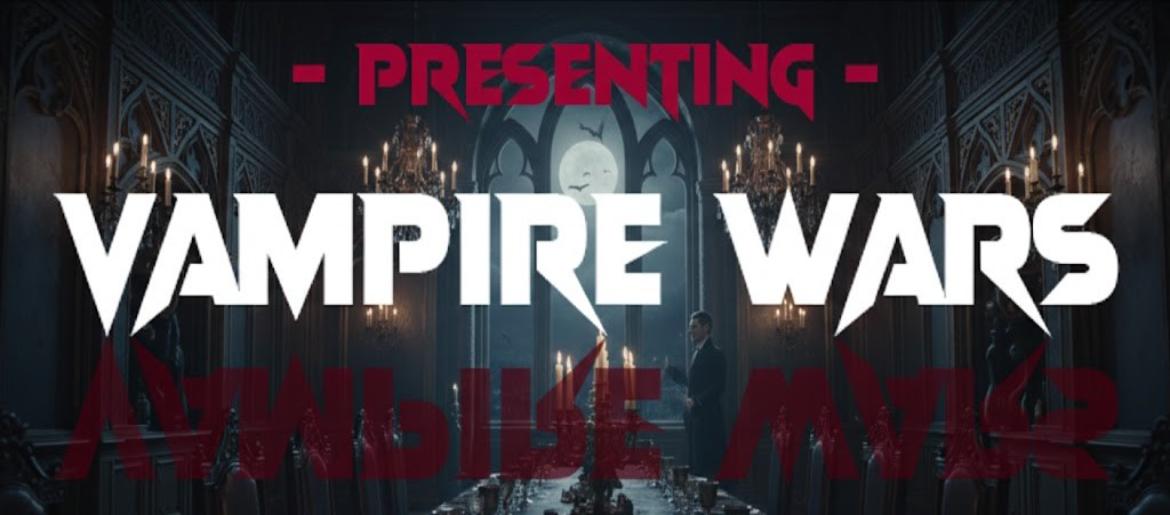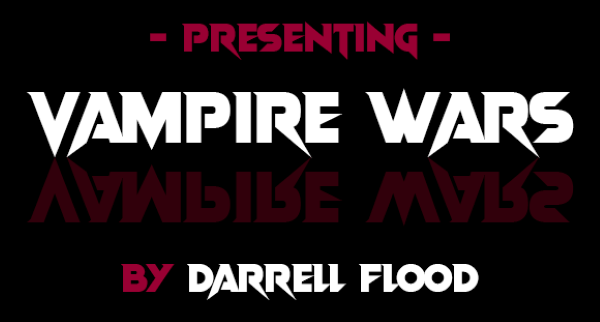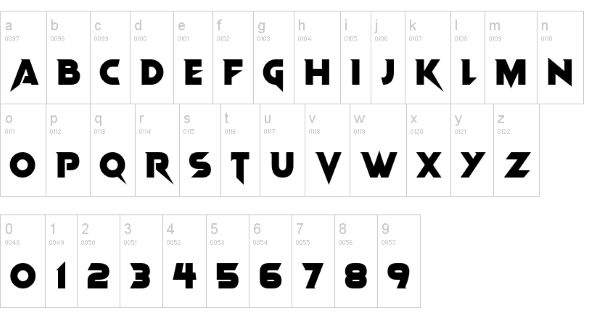
Vampire Wars Font
Vampire Wars Font is a dark fantasy display typeface with sharp edges and dramatic forms. Its gothic, battle-inspired style makes it perfect for game titles, posters, logos, album covers, and horror or vampire-themed designs that demand a powerful, intense presence.